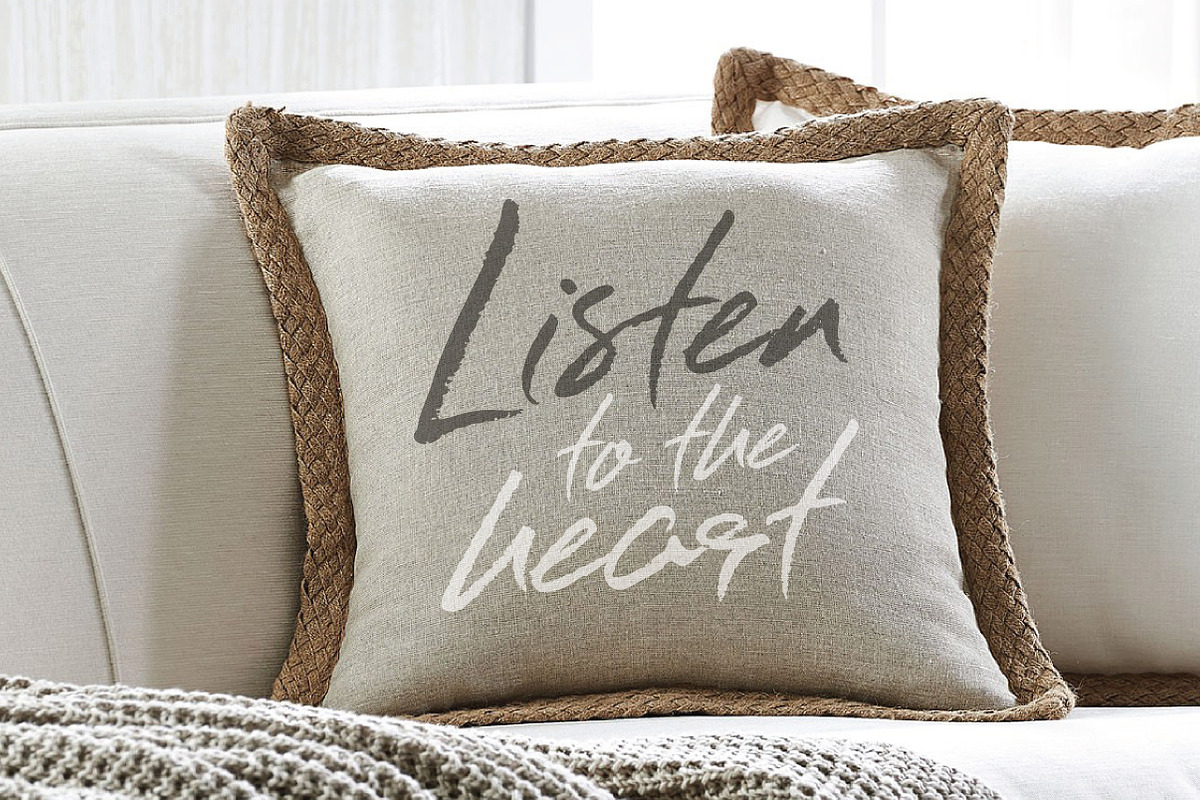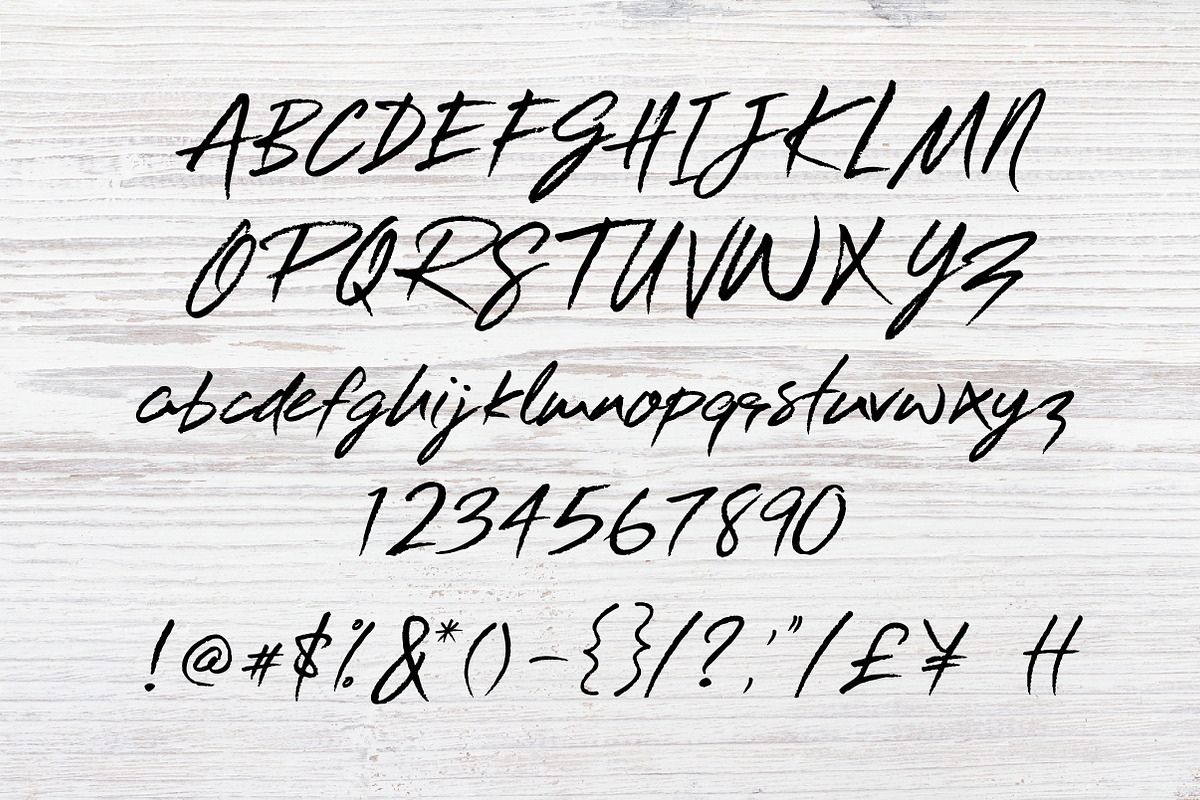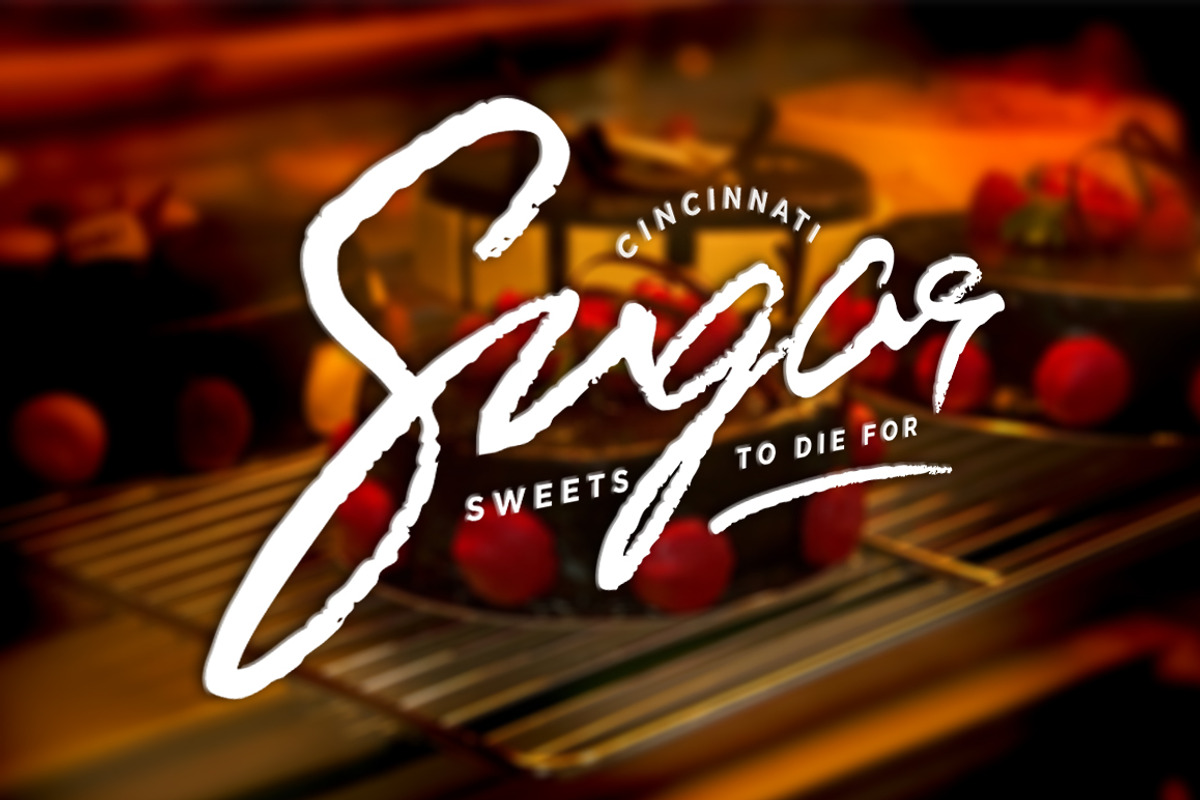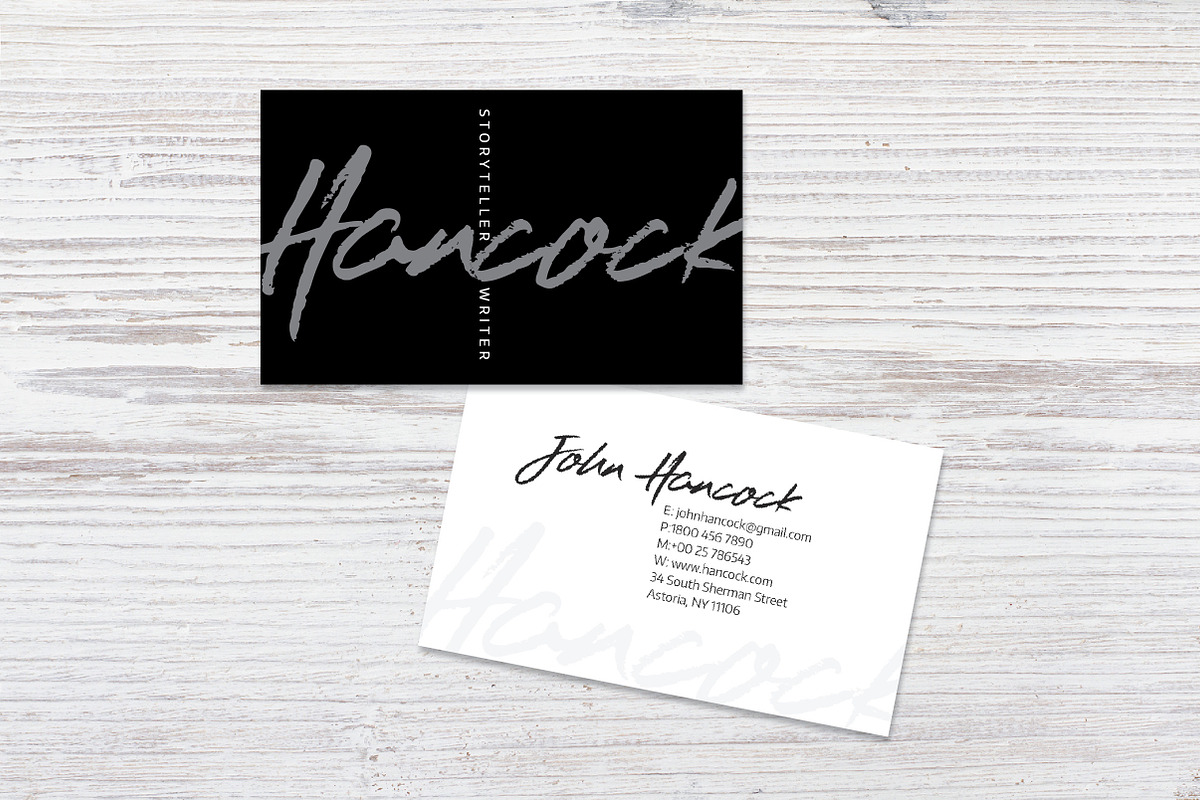
Riverdance Handwritten Font
Riverdance Handwritten Font by Phil Marquet is a font selected for branding, posters, packaging, typography.
- Riverdance: A handwritten script font containing upper & lowercase characters, numerals and a large range of punctuation.
- Several alts, swishes and ligatures are available in glyphs panels.
Why Riverdance Handwritten Font is worth a look
Riverdance Handwritten Font by Phil Marquet fits naturally into Branding, posters, packaging, typography.